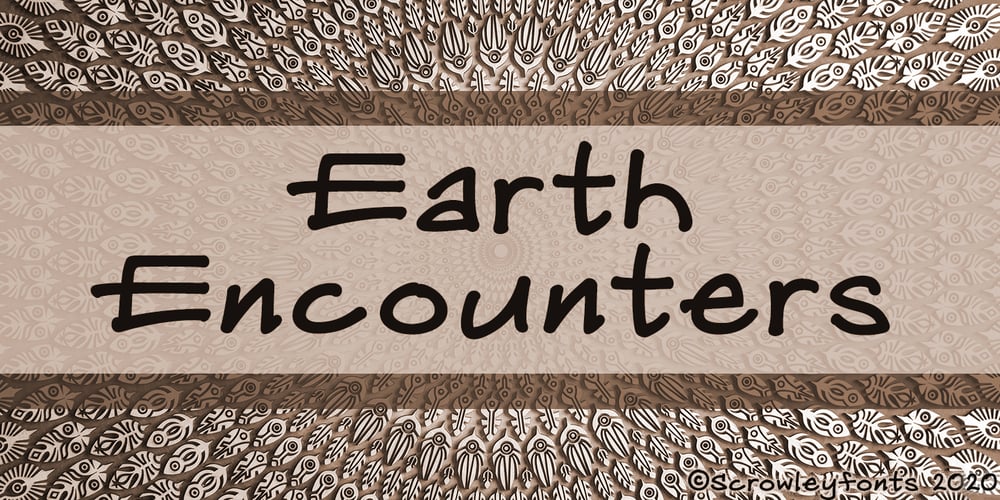
Earth Encounters Font Family was designed by Kusameh Omala and published by Scrowleyfonts. Earth Encounters contains 3 styles and family package options. When my Taiji teacher gave all of his students a handwritten card with their name on I noticed that he had an unusual and beautiful handwriting. I persuaded him to write out each of the standard glyphs for me in return for me doing some repairs to his trousers!Earth Encounters Family is the result.The regular font and the light version include OpenType coding to offer the option of different versions of the same letter in words, giving the effect of real handwriting. Earth Encounters also comes with a Shadow style.